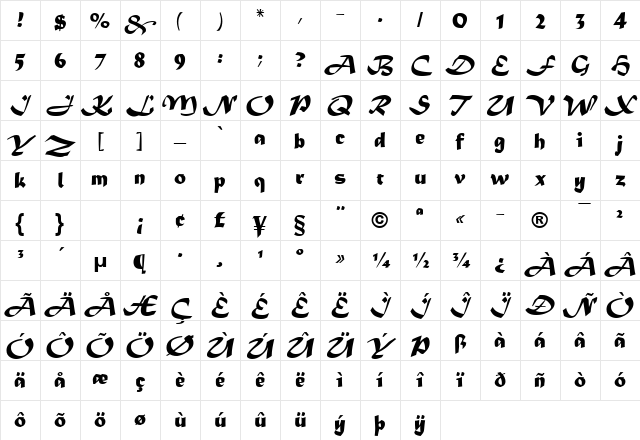
Matura MT Script Capitals Regular
Foundry: Agfa Monotype Corporation
Design Context for Matura MT Script Capitals
Matura MT Script Capitals flows with the natural rhythm of handwritten lettering, making it ideal for designs that call for warmth and personal expression.
Font Pairing: Combine Matura MT Script Capitals with a simple geometric sans for maximum contrast - the tension between flowing curves and clean structure is a classic typographic pairing.
Pro Tip: Use Matura MT Script Capitals for short runs of text - names, titles, or taglines. Extended body copy in script faces tires the eye quickly.